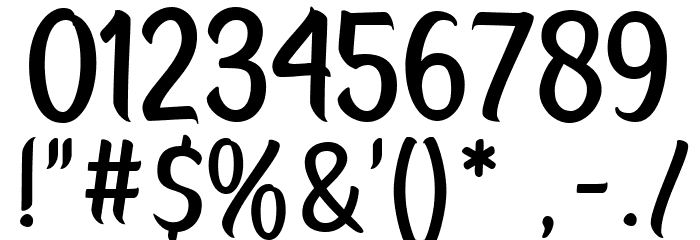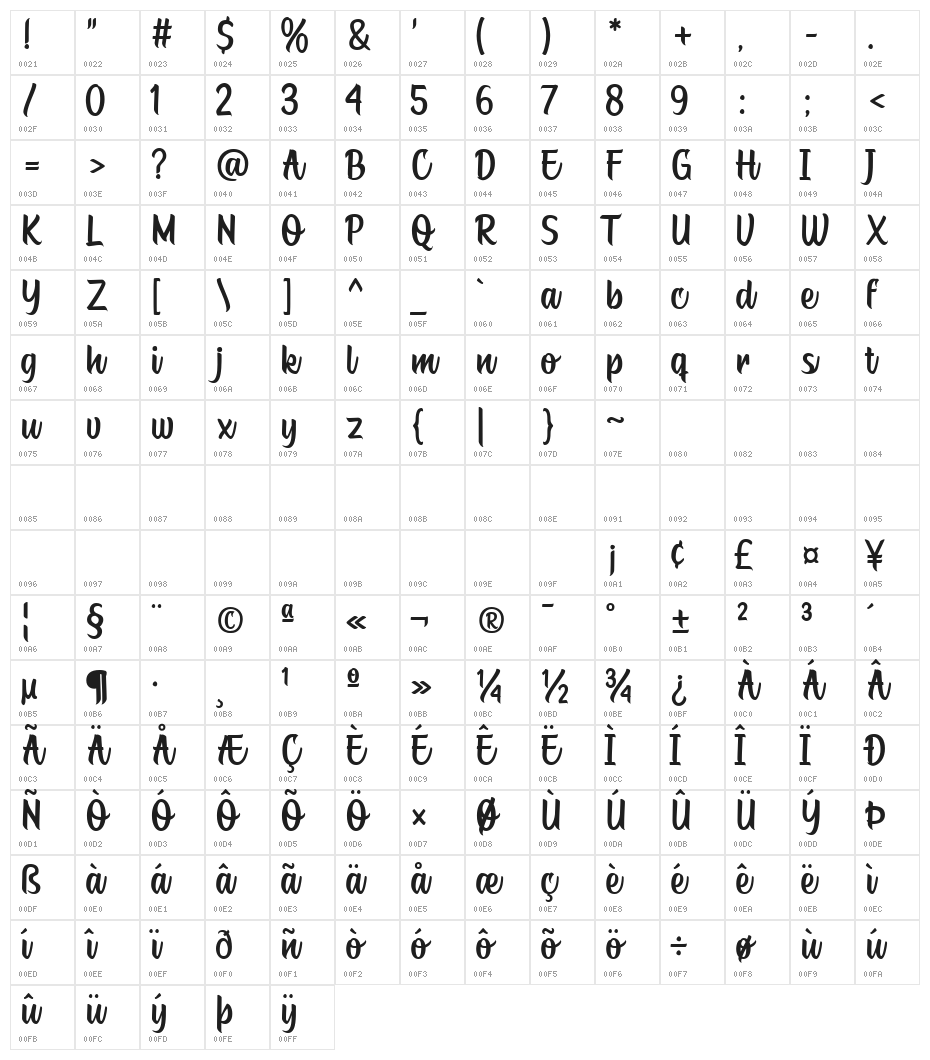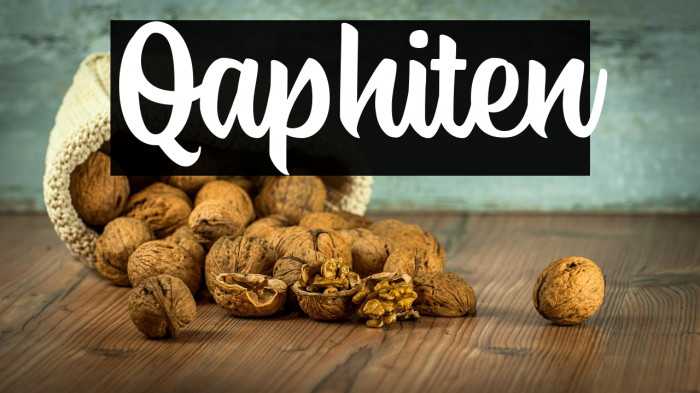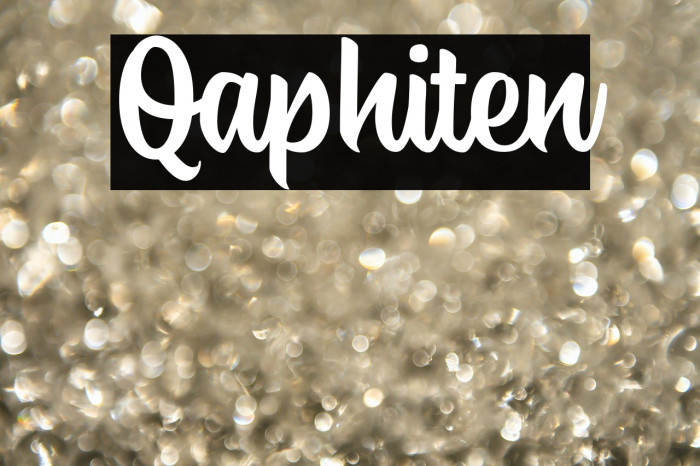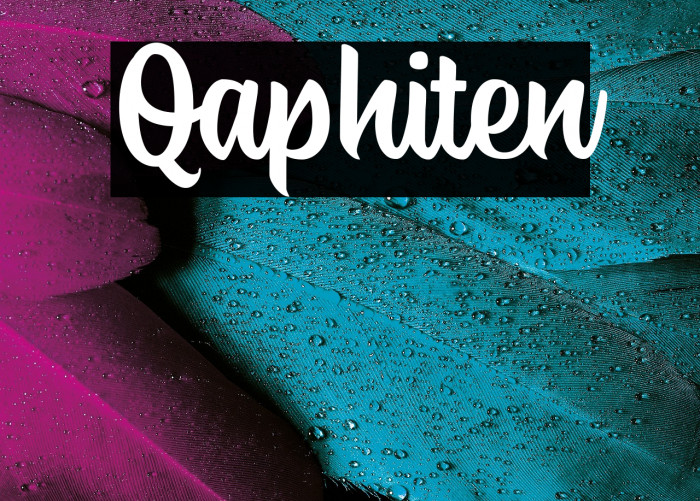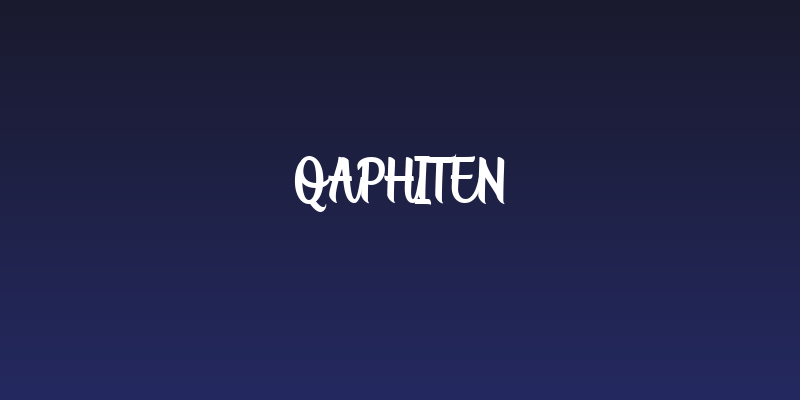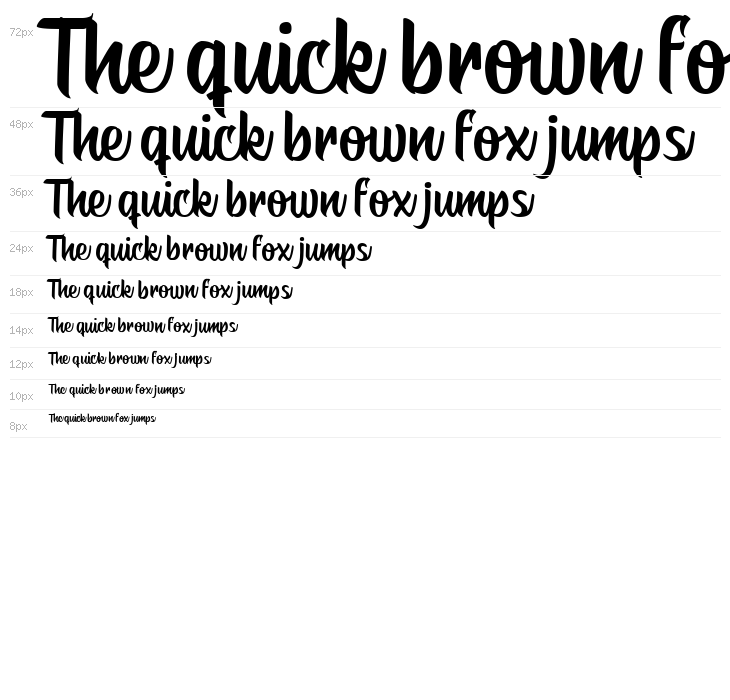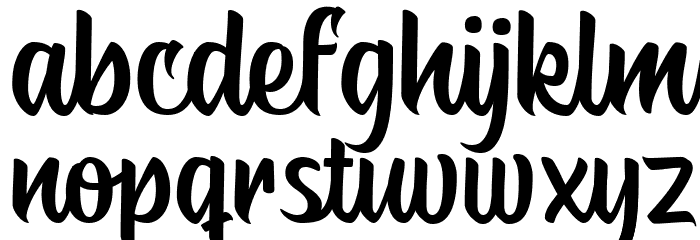
Qaphiten Font
Qaphiten Description
This font features a playful and energetic script style with a handwritten appearance. The characters are bold and slightly slanted, giving a sense of movement and dynamism. The uppercase letters are tall and prominent, while the lowercase letters maintain a consistent flow, enhancing readability. The numbers and special characters are designed to match the lively style, making them suitable for creative and informal applications. The strokes are thick and uniform, contributing to a cohesive look across all characters. This font is ideal for projects that require a personal touch or a casual, friendly vibe.
Overall StylePlayful, Casual
Use CaseLogos, Headlines, Informal text
Proposed ProjectsGreeting cards, invitations, branding, social media graphics, and posters.